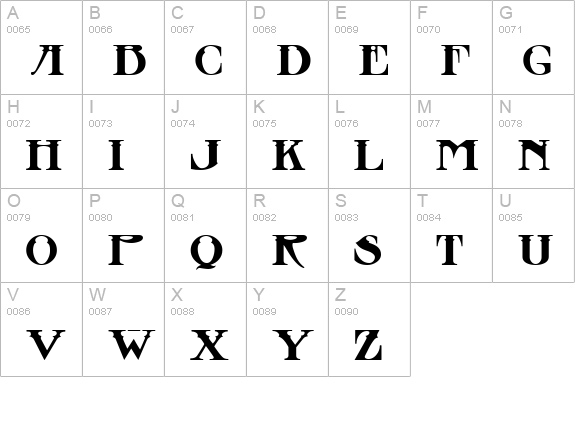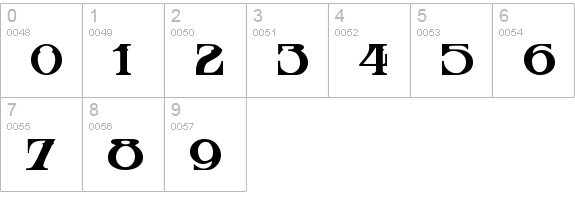
Stowaway MF font is a versatile and stylish typeface that exudes a sense of adventure and sophistication. With its sleek lines and elegant curves, this font is perfect for a wide range of design projects, from logos to posters to branding materials. Whether you're looking to add a touch of elegance to your next project or create a bold statement, Stowaway MF font has you covered. Best of all, this font is available for free download at FontsMarket.com. Simply visit the website to access this stunning typeface and start incorporating it into your designs today. Don't miss out on the opportunity to enhance your projects with the timeless beauty of Stowaway MF font – download it for free now!